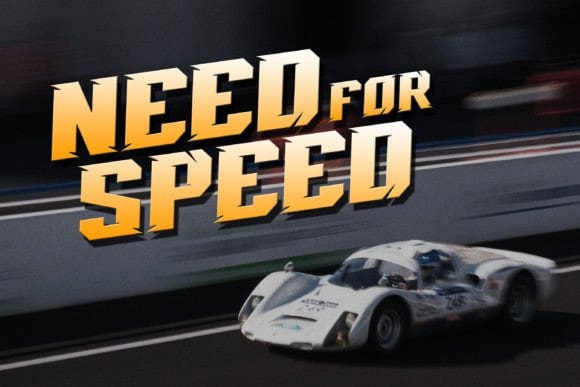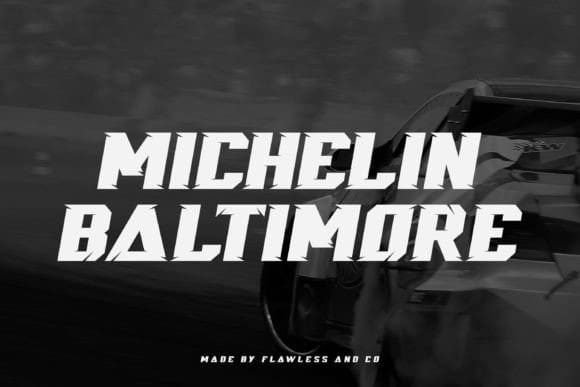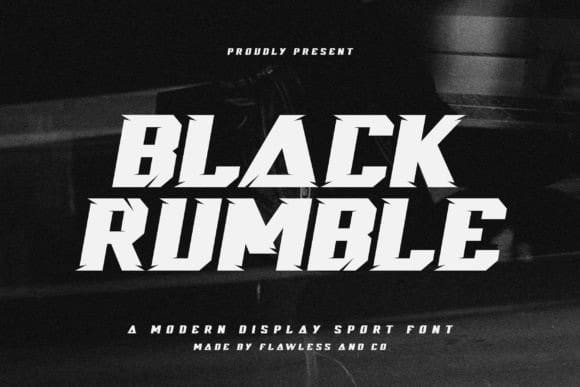
Black Rumble Font
Black Rumble Font, a sports racing font designed to evoke the thrill and intensity of high-speed racing. With its bold, dynamic letterforms and powerful presence, BlackRumble is perfect for racing branding, sports events, event promotions, merchandise, and more, ensuring your designs accelerate to the front of the pack.